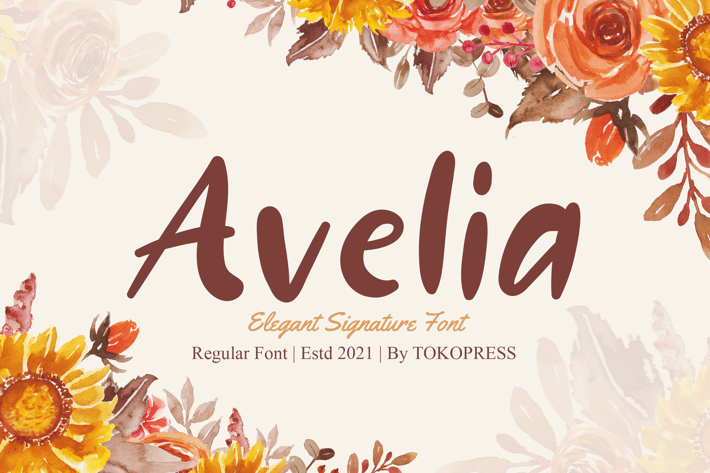
Avelia - Girly handwriting font
Avelia - Girly Handwriting Font
Discover Avelia, a floral-inspired handwritten script font that combines elegant signature style with smooth, flowing letterforms and gentle contrast. Designed for creatives who value personal charm and visual softness, Avelia brings a graceful, feminine energy perfect for wedding themes, lifestyle branding, or boutique packaging. Its expressive strokes and slightly bouncy baseline evoke a natural handwritten feel, yet remain refined and readable for high-end design contexts.
Whether you're designing a wedding suite, launching a feminine product line, or creating an Instagram quote grid, Avelia adds a romantic, human touch that instantly elevates visual storytelling. The floral-themed preview hints at its suitability for event invitations, handcrafted logos, and editorial layouts where elegance and warmth are key. Let your designs feel more personal, more alive—with Avelia.
Key Features
✔ Handwritten Elegance
Smooth curves and flowing letter connections make Avelia ideal for personal branding and luxury touches.
✔ Modern Yet Organic
A subtle bounce and clean contrast offer balance—sophisticated enough for logos, soft enough for invites.
✔ Built for Versatility
Great for wedding stationery, feminine packaging, signature logos, moodboard titles, and lifestyle blog graphics.